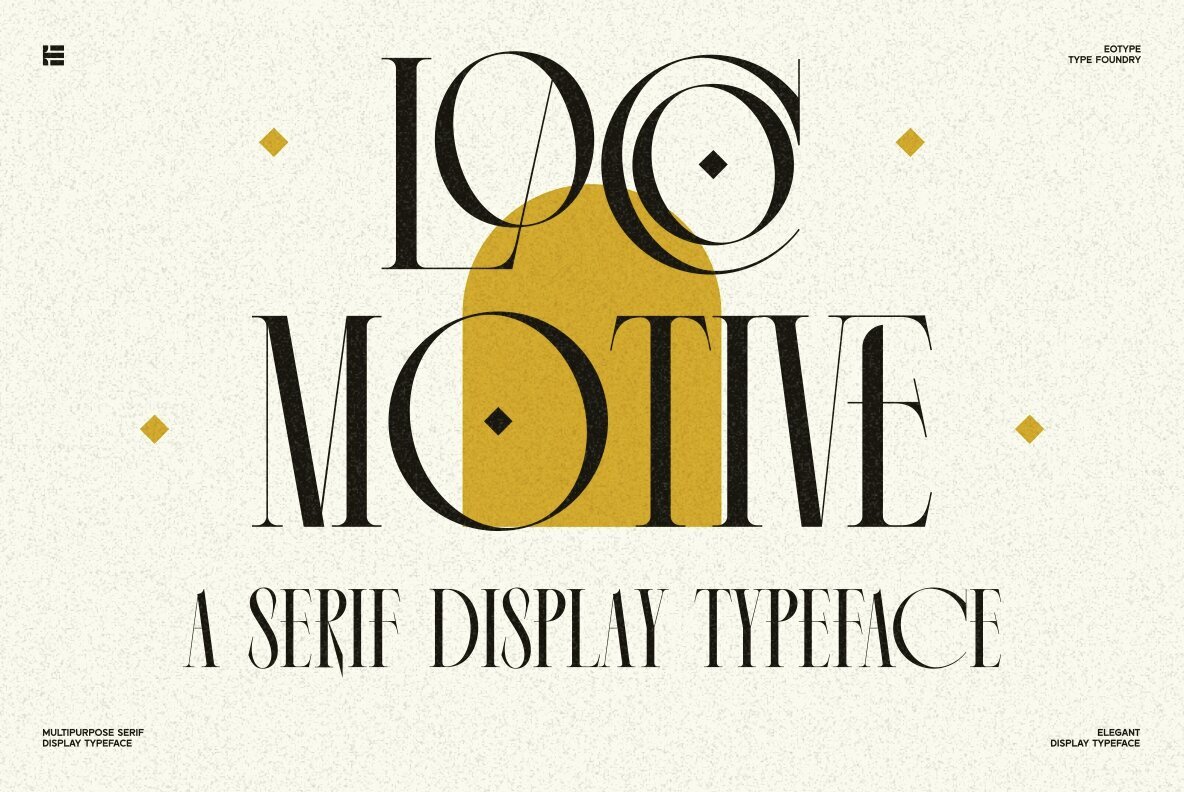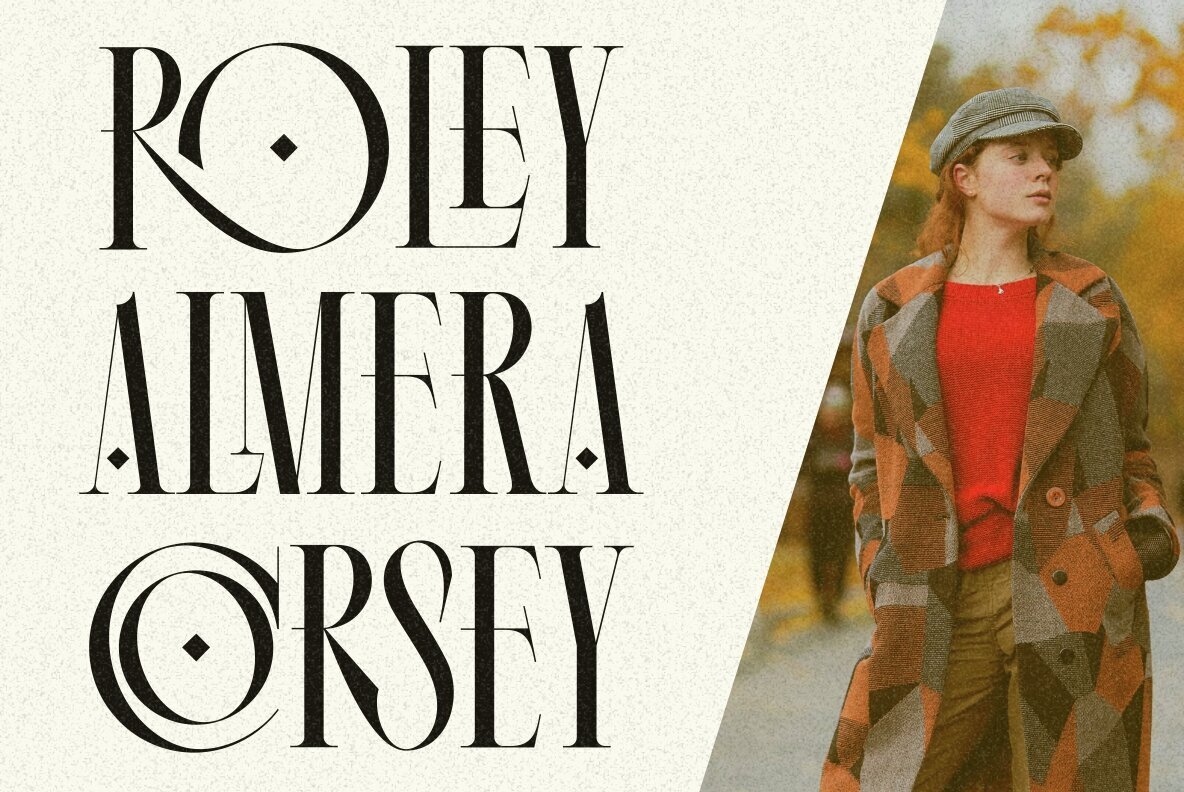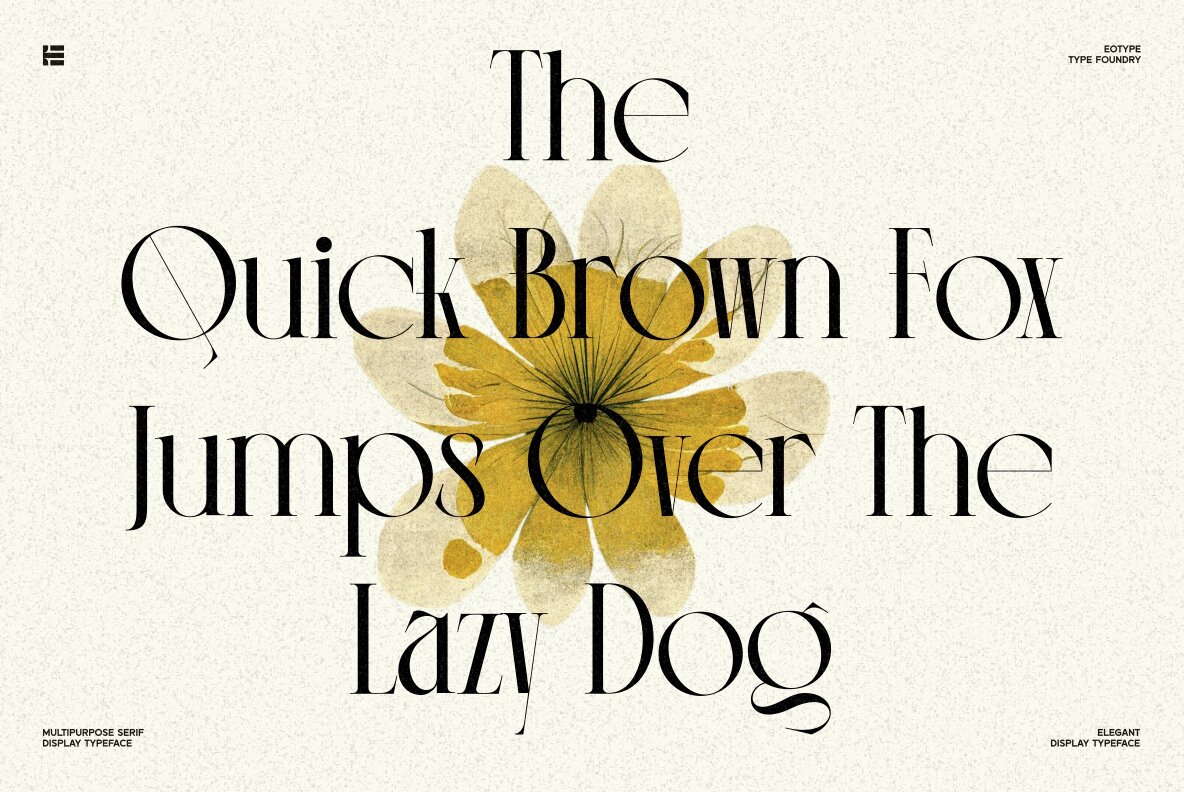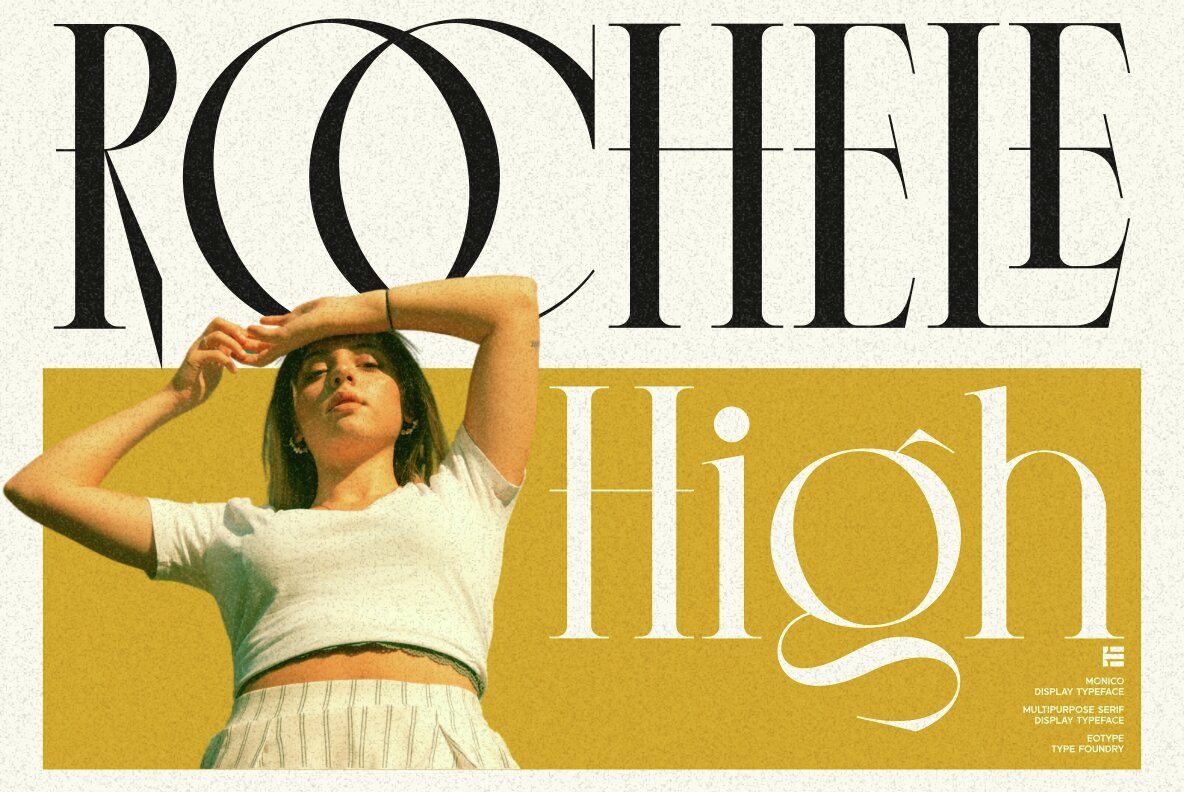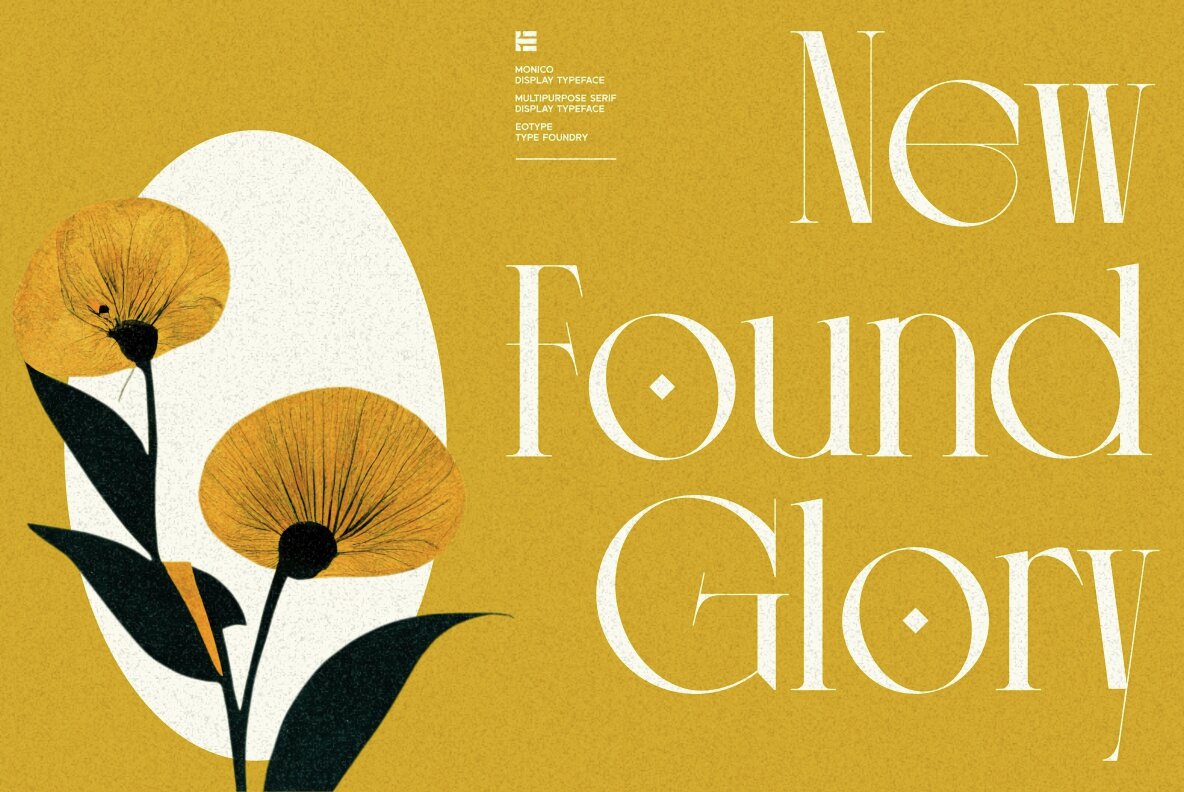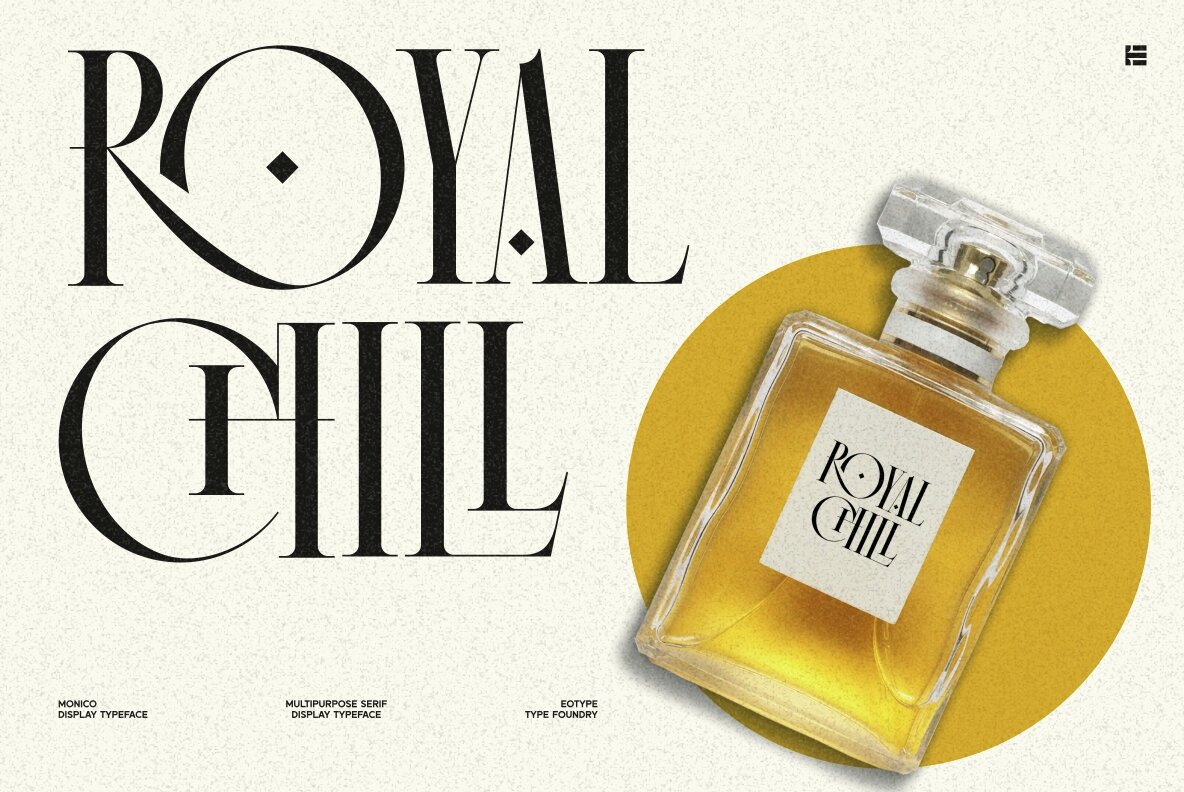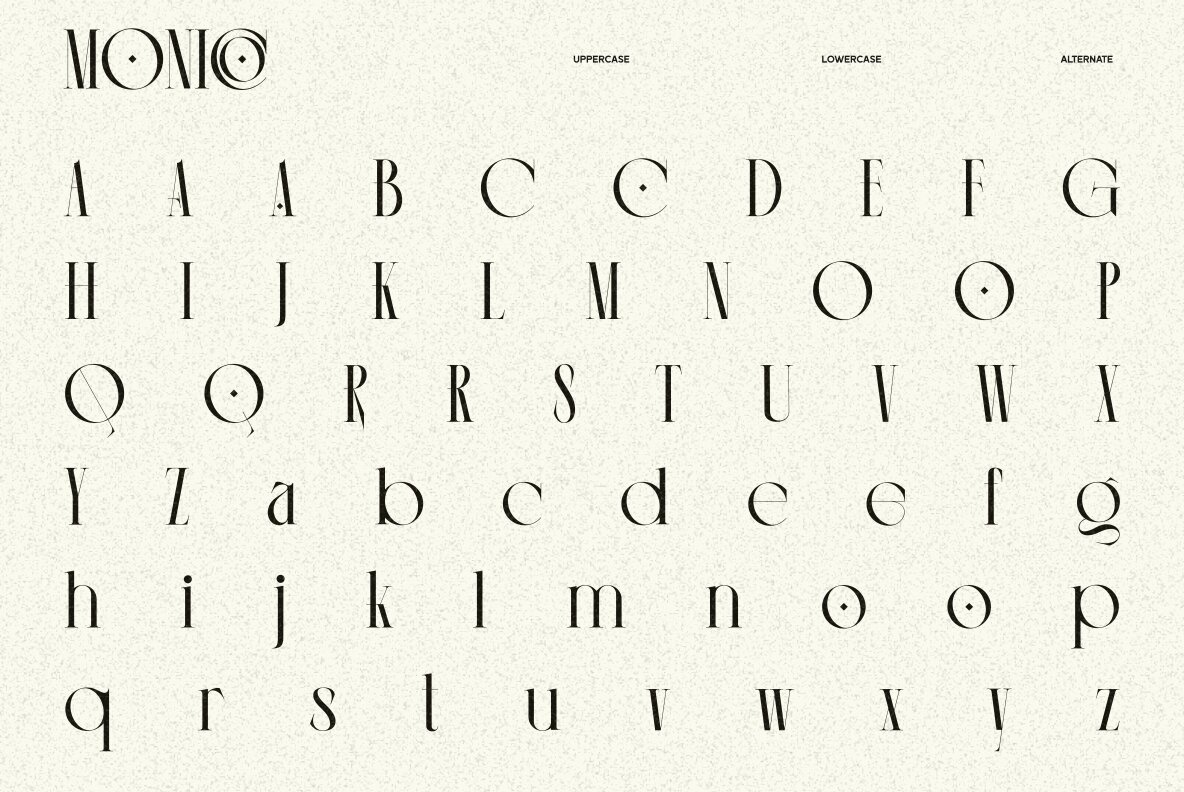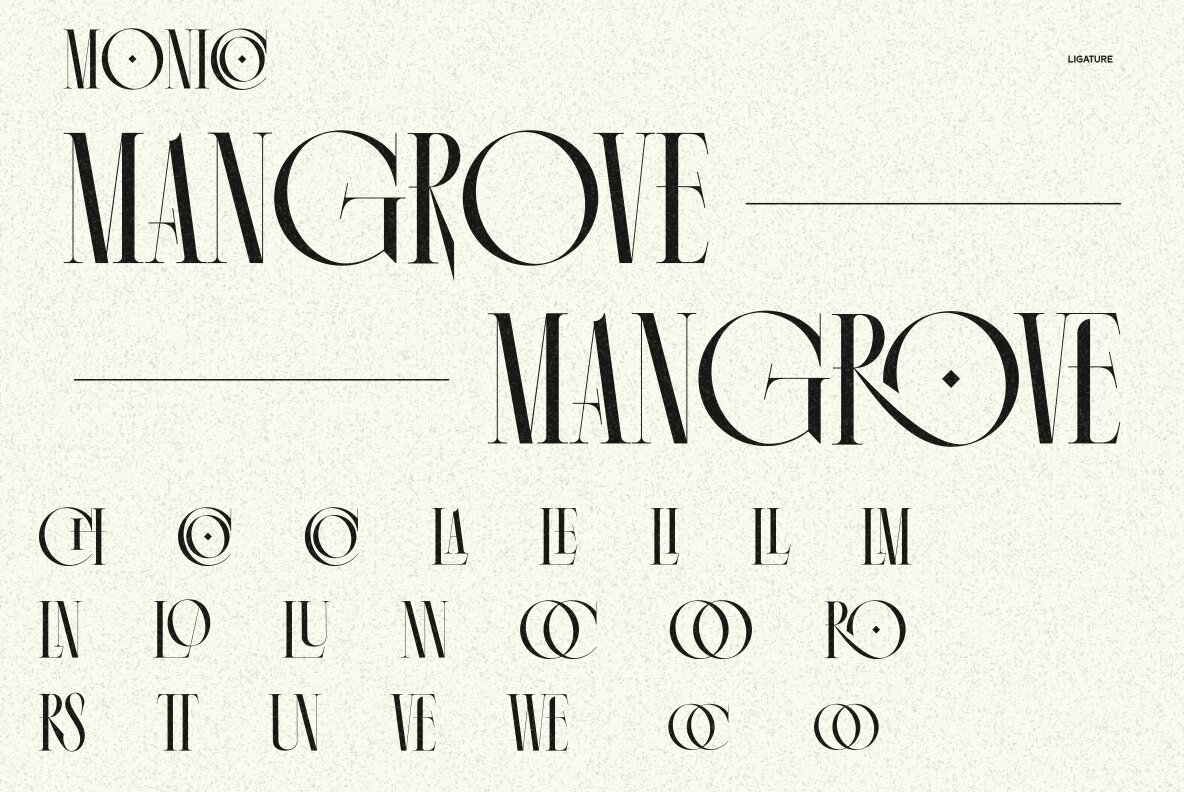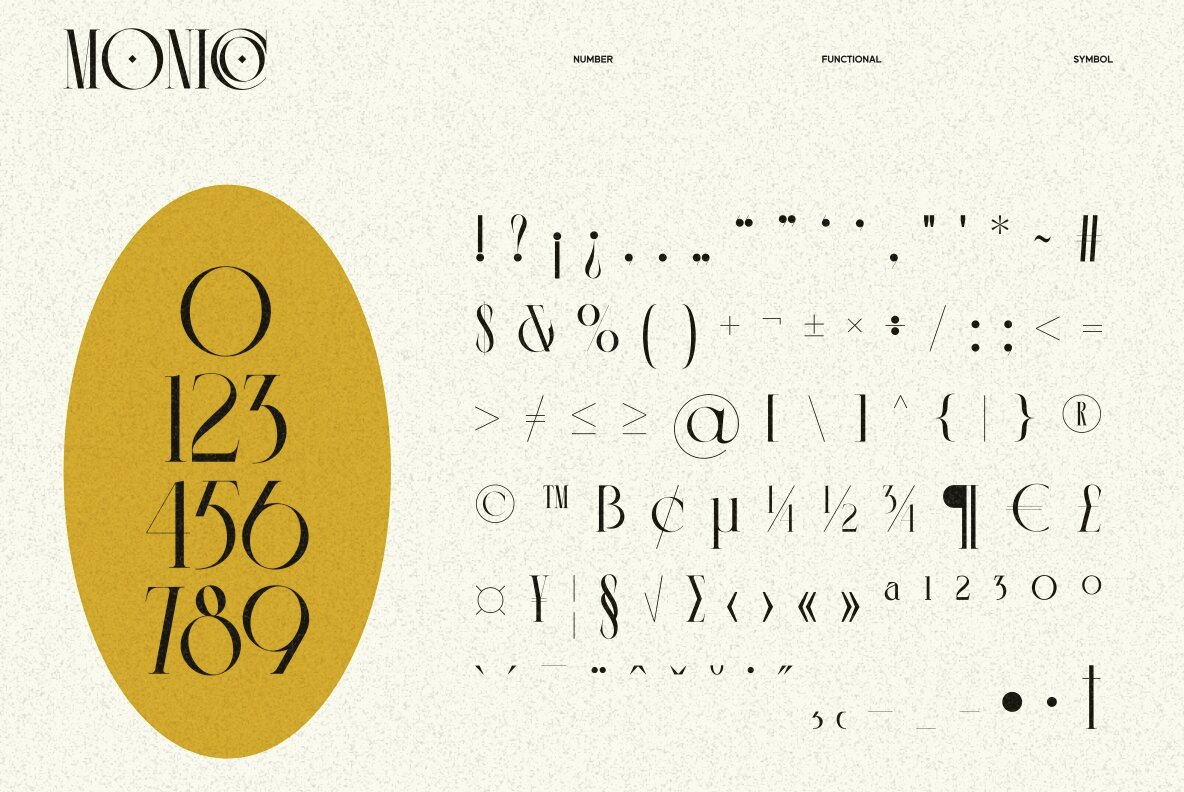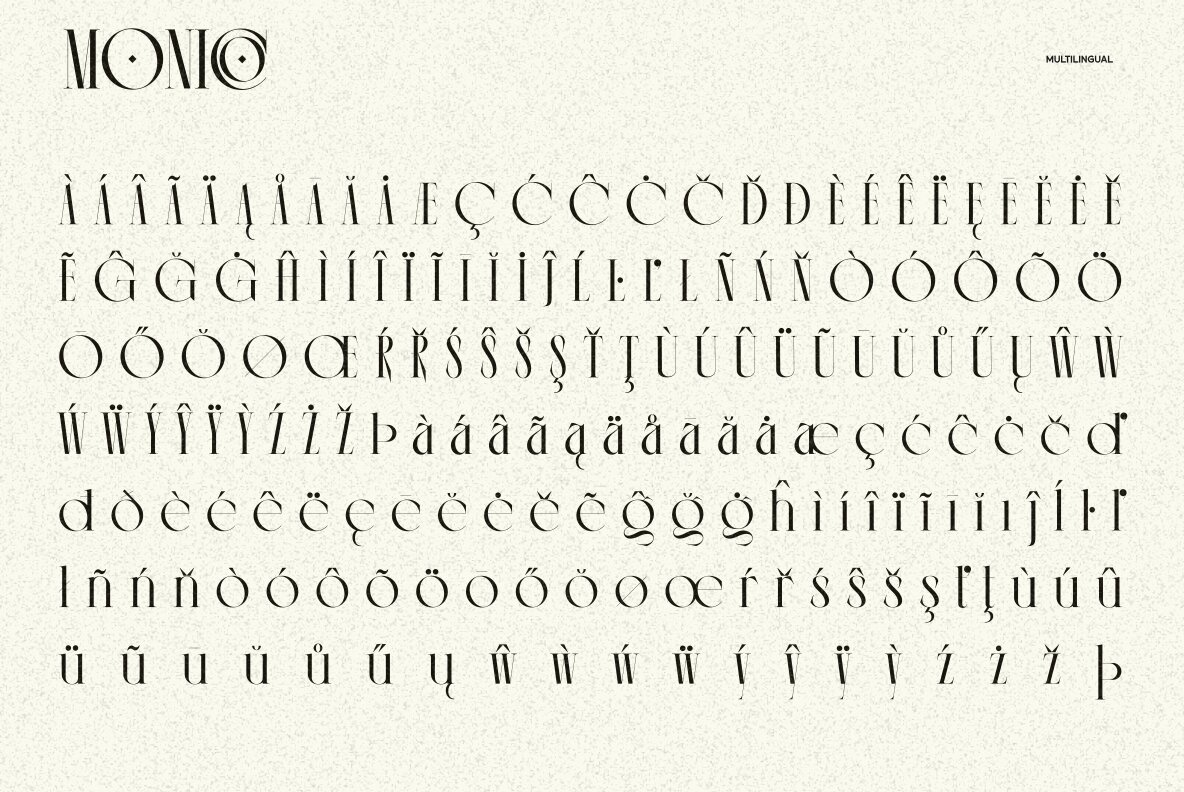
Monico Font
Monico Regular
Presenting you with the newest paradigm of typographical design, "Monico Monico". Immaculately crafted by Eotype Studio, this condensed font seamlessly blends elegance and versatility encapsulated in each stroke. Securing an eminent role in the world of graphic design, Monico Monico is setting standards for creating enchanting logotypes, captivating magazine designs, and more. Injecting a fresh breath of air in the design industry, it endows your projects with a nuanced aesthetic, assuring to be an impressive attribution to any creative professional's toolkit. Rapidly carving its niche among graphic designers and marketing firms, Monico Monico has emerged as a comprehensive solution to myriad design endeavours. Its superior quality and innovative attributes extend far beyond fulfilling the voids in the burgeoning industry. Monico Monico personifies a rendezvous between style and practicality, making it an indispensable asset for design-oriented assignments and a go-to font for industry professionals seeking to imprint their distinctiveness. Key Features of Monico Monico:Discover Monico Monico, Elegance and Versatility in One Font by Eotype Studio